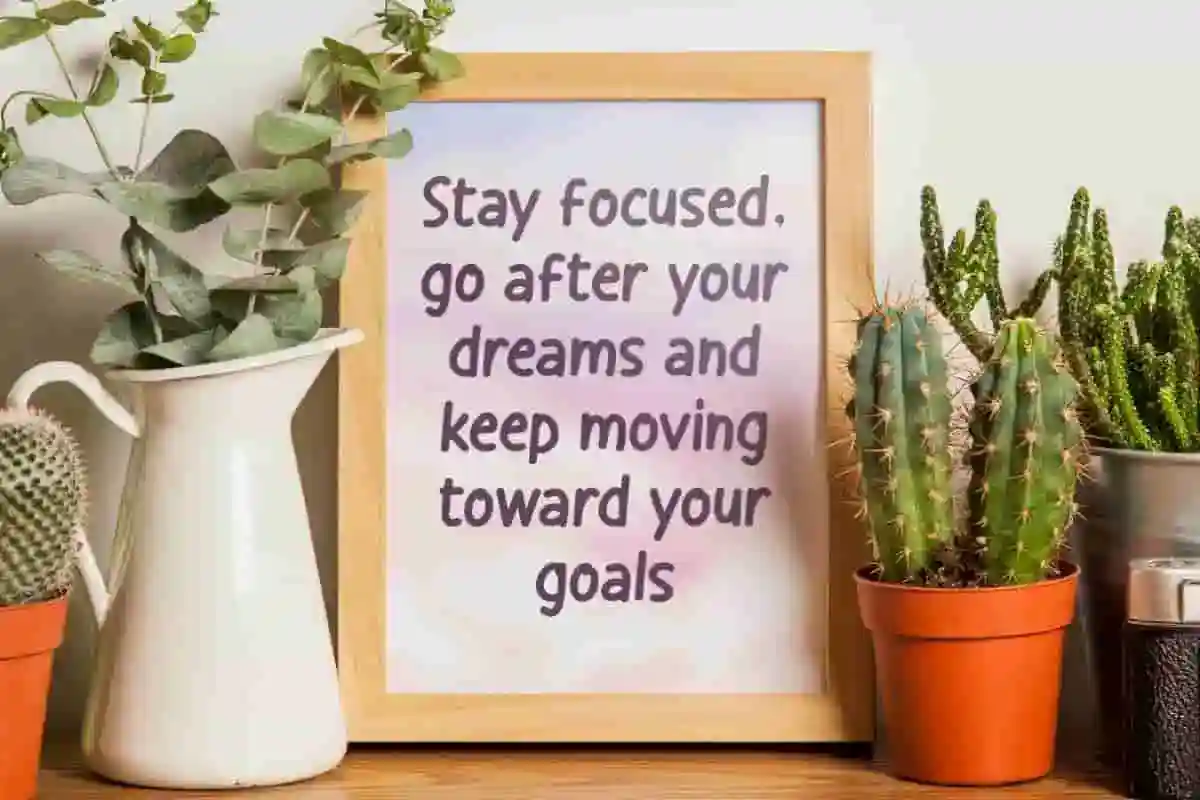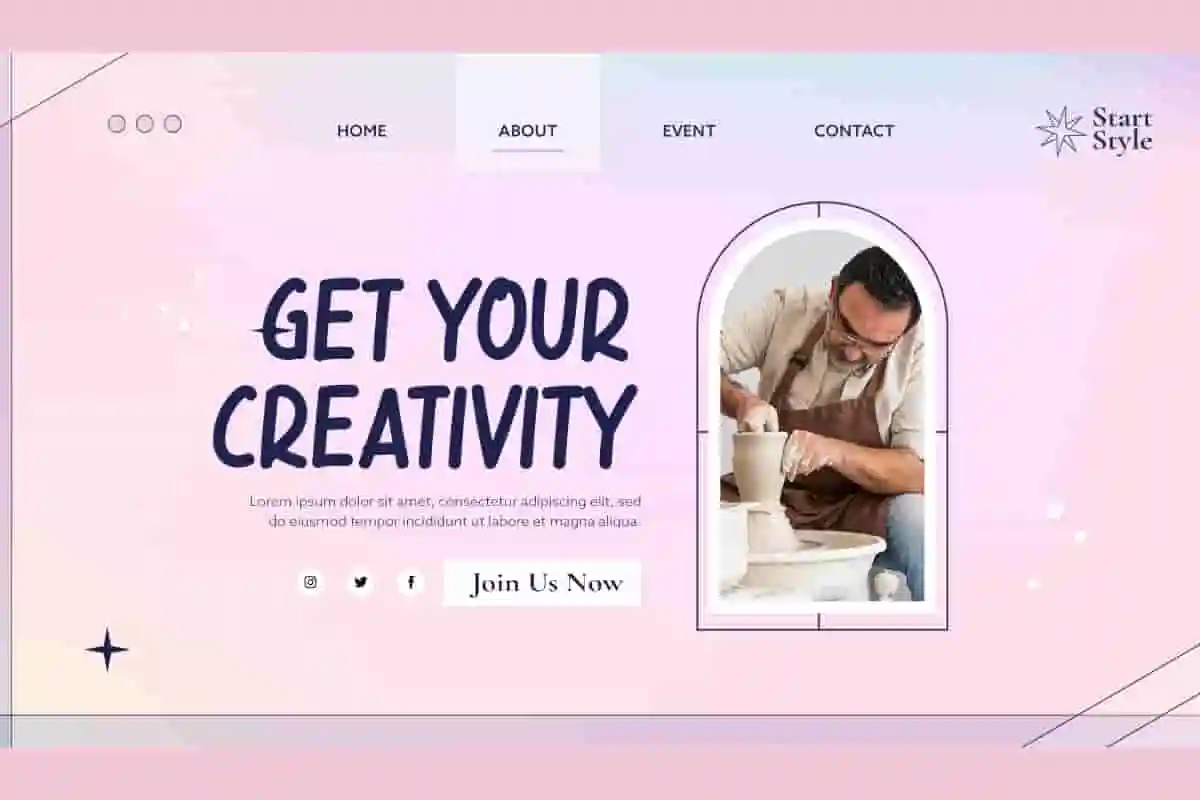
Dream Yourself Font is a casual semi cartoon handwriting display font by NoahType. This cute font is well-crafted despite its simple style. It will be perfect for any designs, such as brand image, cover, custom design, invitation, label, marketing material, menu, poster, product packaging, quote, stationery, wallpaper, web, and many more!
Dream Yourself Font includes full set of Uppercase and Lowercase Basic Characters, Numerals, Punctuation, and Symbol. This stylish font will give modern looks and also a perfect choice for many industries, such as accessories, advertising, event or festival, fashion, florist, food and beverage, furniture, photography, printing, publishing, etc.